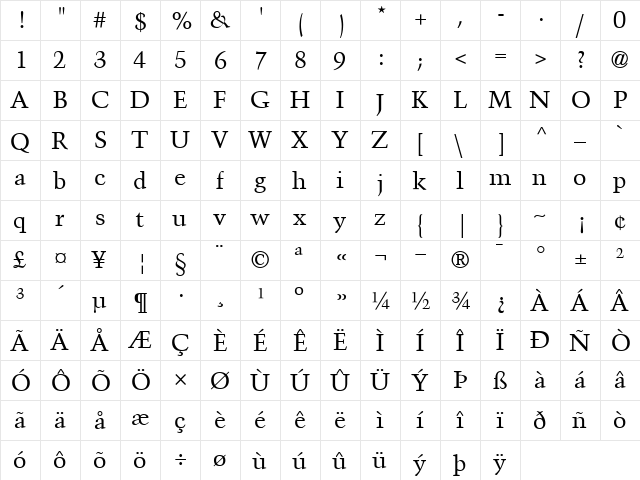
TrumpMediaevalRoman Roman
Design Context for TrumpMediaevalRoman Typeface
TrumpMediaevalRoman is a composed and adaptable typeface that performs quietly and consistently across a wide range of design contexts.